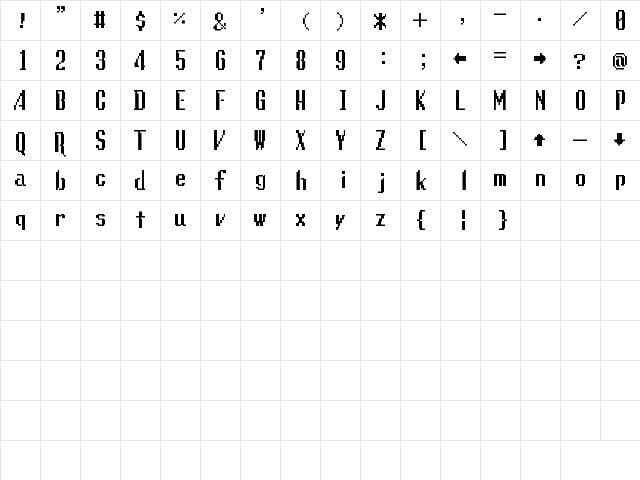
Lunchtime Doubly So Regular
Design Context for Lunchtime Doubly So Typeface
Lunchtime Doubly So is a composed and adaptable typeface that performs quietly and consistently across a wide range of design contexts.
Pro Tip: Use Lunchtime Doubly So in both headline and body roles to test its range before committing to a single application.